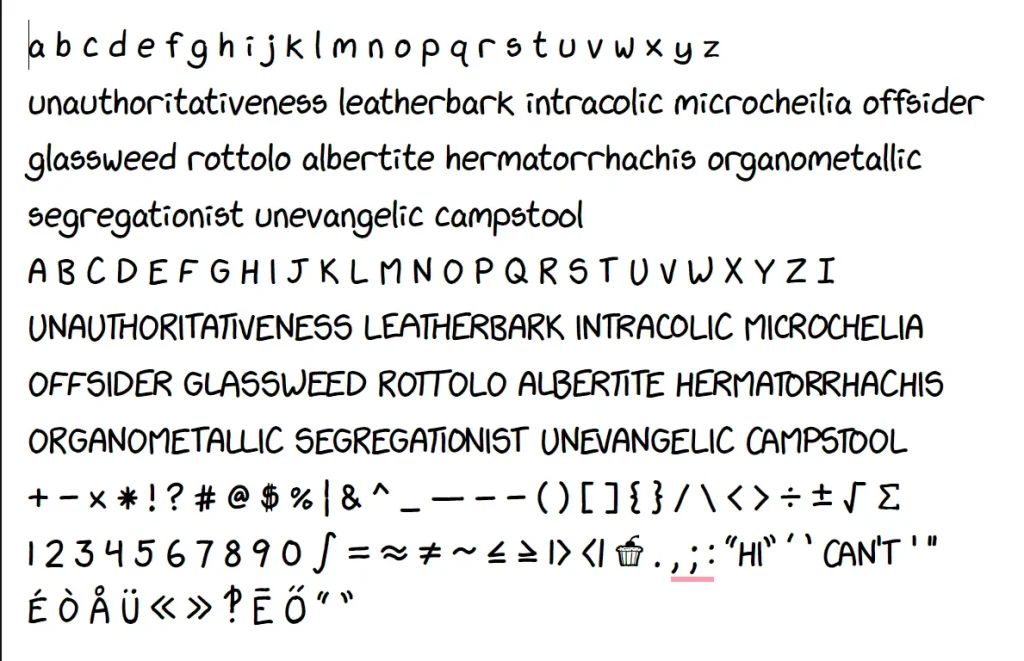
This free xkcd font package contains two typefaces based on the handwriting of xkcd creator Randall Munroe: xkcd Script and xkcd.
xkcd Script has a looser, less uniform handwritten appearance. The xkcd font uses more consistent letterforms for clearer reading.
You can use them for comic lettering, hand-drawn charts, diagrams, posters, and noncommercial web graphics.
- Two typefaces: xkcd Script and xkcd.
- xkcd Script uses less uniform letterforms for a more natural handwritten appearance.
- xkcd uses more consistent letterforms with greater legibility.
- Create comic panels and speech-bubble lettering with an xkcd-inspired handwritten style.
- Use the fonts for hand-drawn charts, graphs, and data presentations.
- Set titles and annotations in diagrams, sketches, and technical illustrations.
- Create informal poster headlines, captions, and presentation graphics.